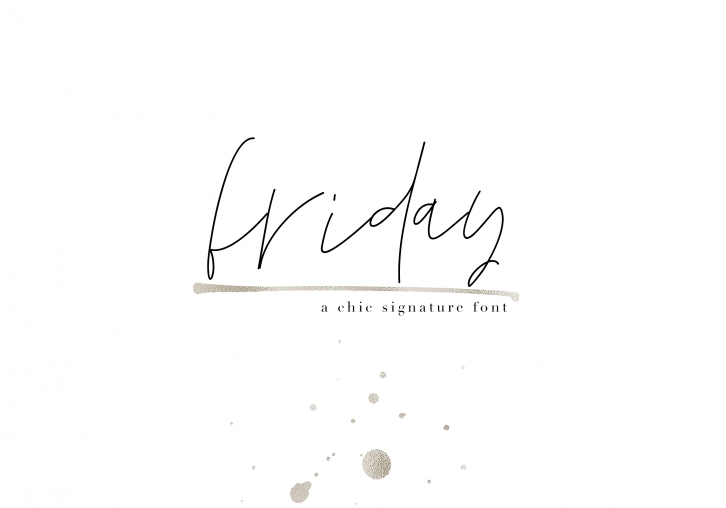
Friday is a beautiful font that was designed by KA Designs. It's a great choice for designers and creatives who need such a font. It was released on March 25, 2018 and the file size is 1.97 MB. Friday may give a more youthful, expressive and casual look to your project. It is a very beautiful, refined, elegant, and high-quality font.